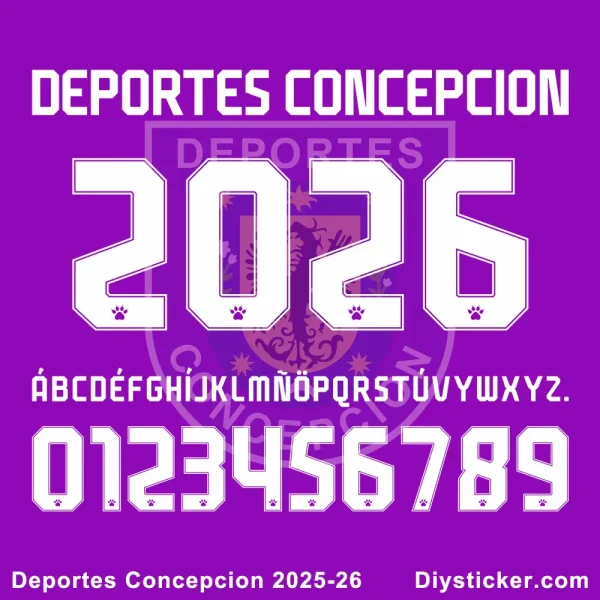
Deportes Concepcion 2025-26 Font Download
Introducing the official Deportes Concepcion 2025-26 font – the exact typography used in the club’s official kits and visual identity for the 2025-26 season. This complete digital font package is designed for supporters, designers, and creators who want to bring authentic Deportes Concepcion style into their projects.
Note: There is no mark on the number, no small hole/dot or any type of effect (truetype rule quality, it will crash the ttf file), so ttf only has normal font, details can be added through vector software editing.